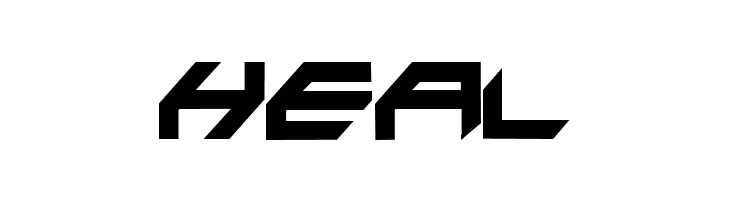
A bold, geometric font with an industrial, stencil-like appearance.
( Gaelleing )
A dynamic, calligraphic font with bold, sweeping strokes and high contrast.
( Ava Liu Design - www.avadanliu.com )
A delicate and elegant font with graceful curves and a light, airy feel.